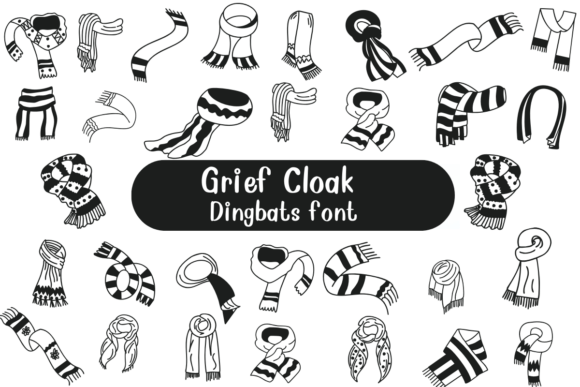
Grief Cloak Font: Elevate Your Creative Projects with a Sketched Style
The Grief Cloak Font is a unique and versatile dingbats font that has gained popularity among designers and crafty individuals. Its sketched style gives it a distinctive and artistic look, making it perfect for a wide range of creative projects. In this article, we will explore the features and benefits of the Grief Cloak Font, and how it can enhance your wedding invitations, DIY crafts, decorations, logos, and other creative ideas.
What is Grief Cloak Font?
Grief Cloak is a dingbats font that features a sketched style, giving it a hand-drawn and artistic look. Dingbats fonts are a type of font that consists of symbols, icons, and graphics rather than traditional alphabet letters. The Grief Cloak Font is designed to add a touch of elegance and sophistication to your creative projects.
Features of Grief Cloak Font
The Grief Cloak Font has several features that make it a popular choice among designers and crafty individuals. Some of its key features include:
- Sketched Style: The Grief Cloak Font has a unique sketched style that gives it a hand-drawn and artistic look.
- Dingbats Font: The font consists of symbols, icons, and graphics rather than traditional alphabet letters.
- Elegant and Sophisticated: The font is designed to add a touch of elegance and sophistication to your creative projects.
- Versatile: The Grief Cloak Font can be used for a wide range of creative projects, including wedding invitations, DIY crafts, decorations, logos, and more.
Benefits of Using Grief Cloak Font
The Grief Cloak Font offers several benefits to designers and crafty individuals. Some of its key benefits include:
- Unique and Distinctive: The Grief Cloak Font has a unique and distinctive look that sets it apart from other fonts.
- Customizable: The Grief Cloak Font can be customized to fit your specific needs and preferences.
- Time-Saving: The font can save you time and effort in designing and creating your creative projects.
Creative Projects that Can be Enhanced with Grief Cloak Font
The Grief Cloak Font can be used to enhance a wide range of creative projects, including:
- Wedding Invitations: The font can be used to create beautiful and elegant wedding invitations that set the tone for your special day.
- DIY Crafts: The Grief Cloak Font can be used to create custom DIY crafts, such as cards, gift tags, and decorations.
- Decorations: The font can be used to create custom decorations, such as banners, garlands, and signs.
- Logos: The Grief Cloak Font can be used to create custom logos for your business or brand.
- Social Media Graphics: The font can be used to create custom social media graphics, such as Facebook posts, Instagram stories, and Twitter headers.
Tips and Tricks for Using Grief Cloak Font
Here are some tips and tricks for using the Grief Cloak Font:
- Experiment with Different Sizes: Experiment with different font sizes to find the perfect size for your creative project.
- Combine with Other Fonts: Combine the Grief Cloak Font with other fonts to create a unique and distinctive look.
The Grief Cloak Font is a unique and versatile dingbats font that can enhance a wide range of creative projects. Its sketched style gives it a distinctive and artistic look, making it perfect for wedding invitations, DIY crafts, decorations, logos, and more. With its ease of use, customizability, and time-saving features, the Grief Cloak Font is a must-have for designers and crafty individuals.
- Q: What is the Grief Cloak Font? A: The Grief Cloak Font is a dingbats font with a sketched style.
- Q: What can I use the Grief Cloak Font for? A: The Grief Cloak Font can be used for a wide range of creative projects, including wedding invitations, DIY crafts, decorations, logos, and more.
- Q: Can I customize the Grief Cloak Font? A: Yes, the Grief Cloak Font can be customized to fit your specific needs and preferences.